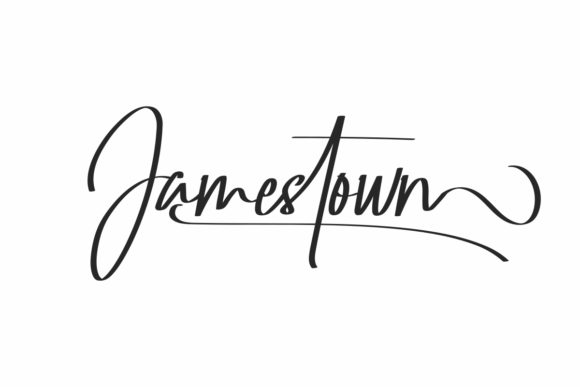
Step into the world of elegance and charm with Jamestown Font, a captivating script font family that brings a touch of sophistication to your creative endeavors. Designed by NihStudio, Jamestown is a remarkable handwritten font that dances across the page with its graceful curves and enchanting personality.
With its timeless beauty, Jamestown Font adds an irresistible charm to any project, making it the perfect choice for a wide range of designs. From wedding invitations that exude romance to heartfelt thank-you cards that convey gratitude, Jamestown Font effortlessly captures the essence of your special moments and transforms them into cherished keepsakes.
Whether you're creating logos that demand attention or crafting stunning greeting cards that leave a lasting impression, Jamestown Font is your trusted companion. Its versatility knows no bounds, allowing you to explore a myriad of design possibilities and create visuals that captivate and inspire.
With Jamestown Font, you embark on a creative journey where your imagination knows no limits. Its delicate strokes and fluid lines bring a sense of authenticity and warmth to your designs, making them truly stand out from the rest. Experience the magic of Jamestown Font and elevate your creative projects to new heights of elegance.
- Exquisite Handwritten Script Font
- Perfect for Weddings, Invitations, and Greeting Cards
- Adds a Touch of Sophistication to Logos and Branding
- Suitable for a Variety of Design Projects
Enhance your creative arsenal with Jamestown Font and elevate your designs to new heights. Dive into the world of elegance and grace, where your artistic expressions come to life with a touch of handwritten charm.